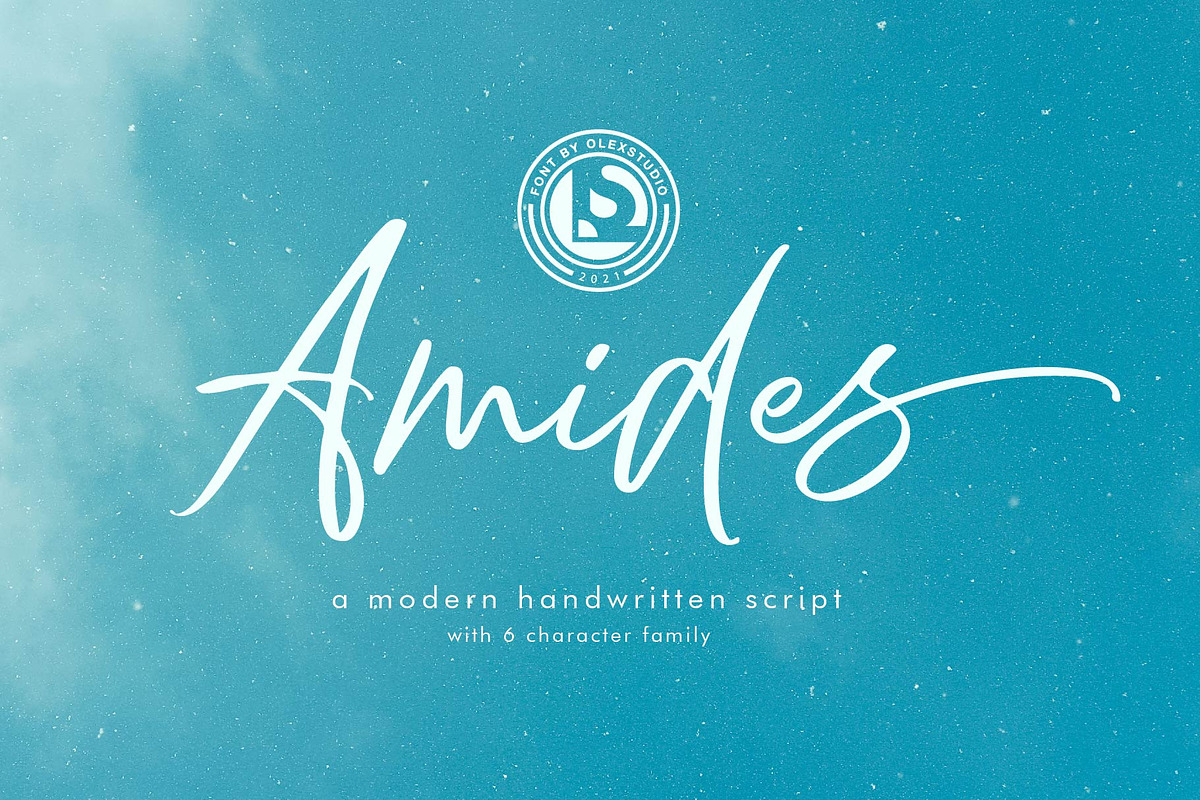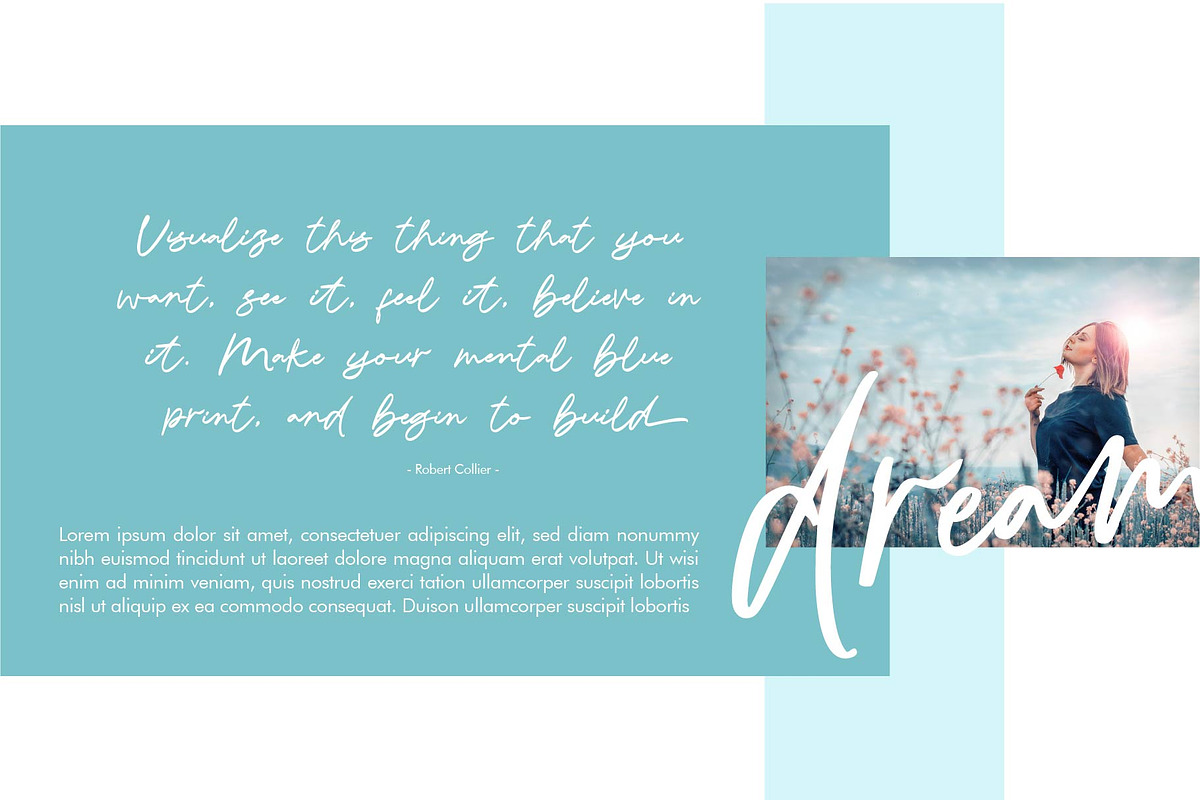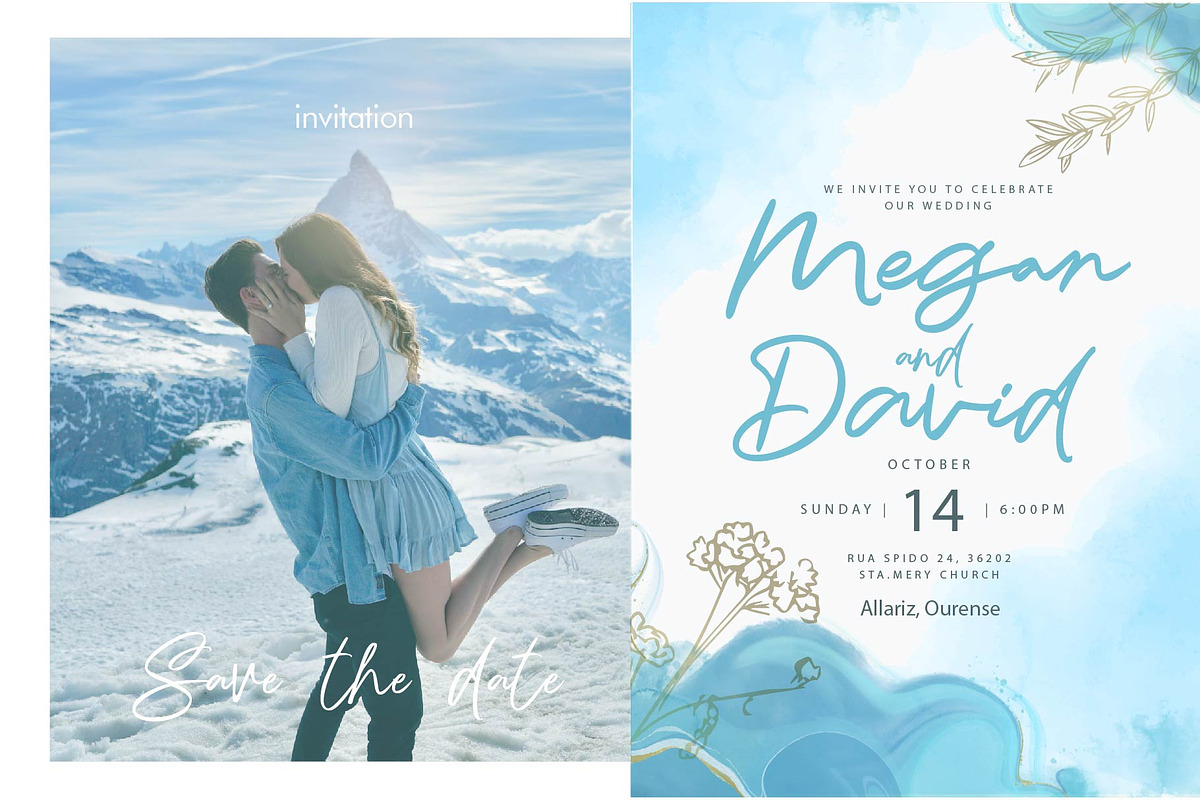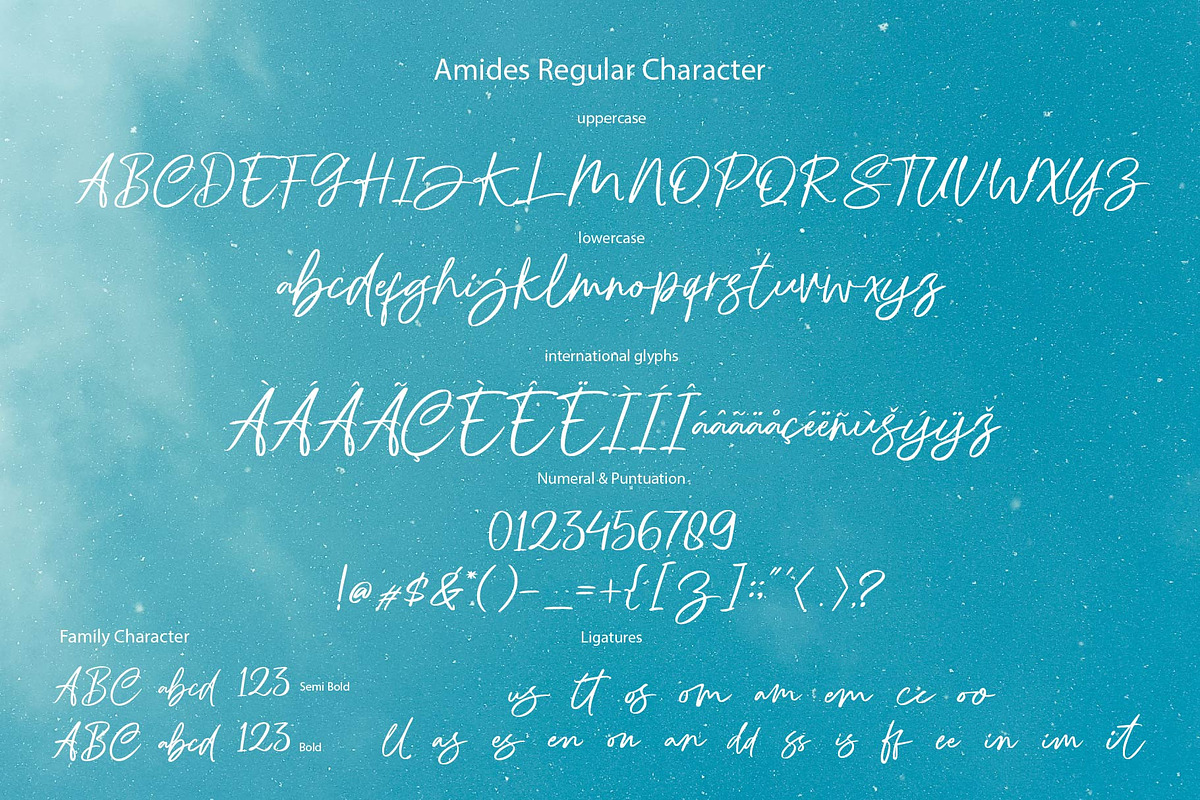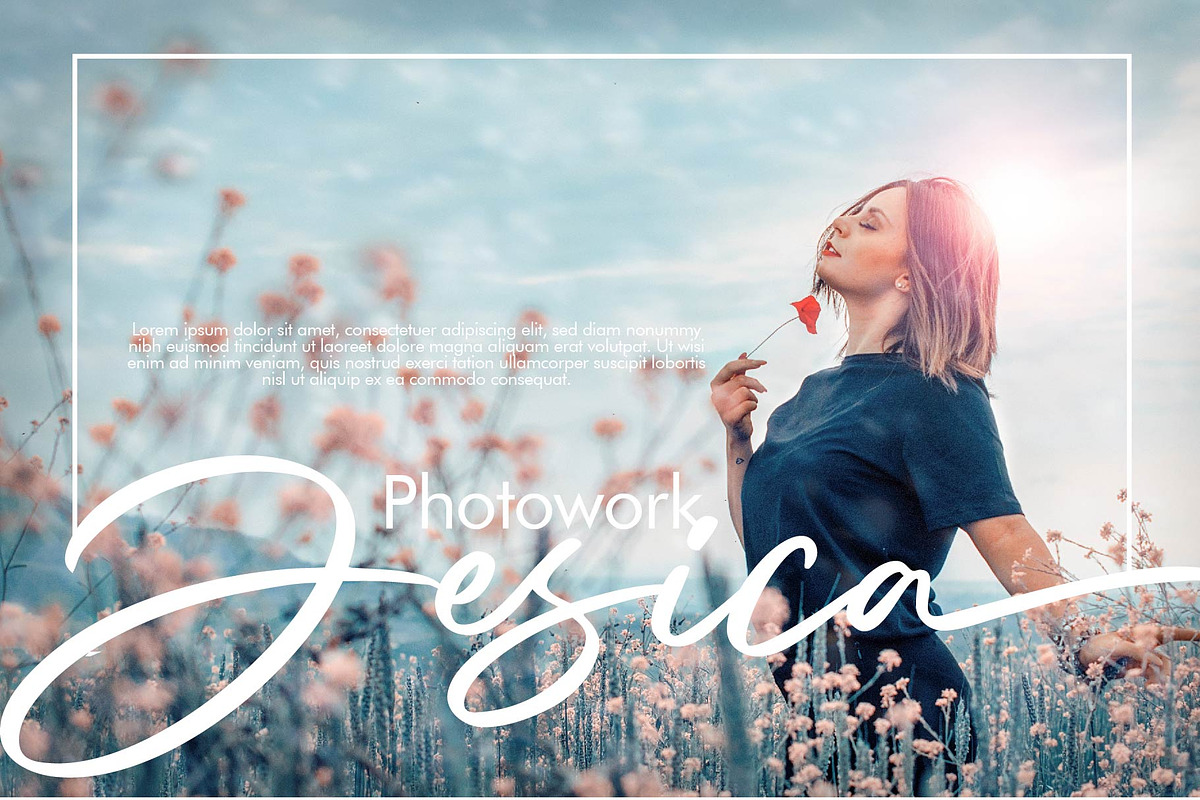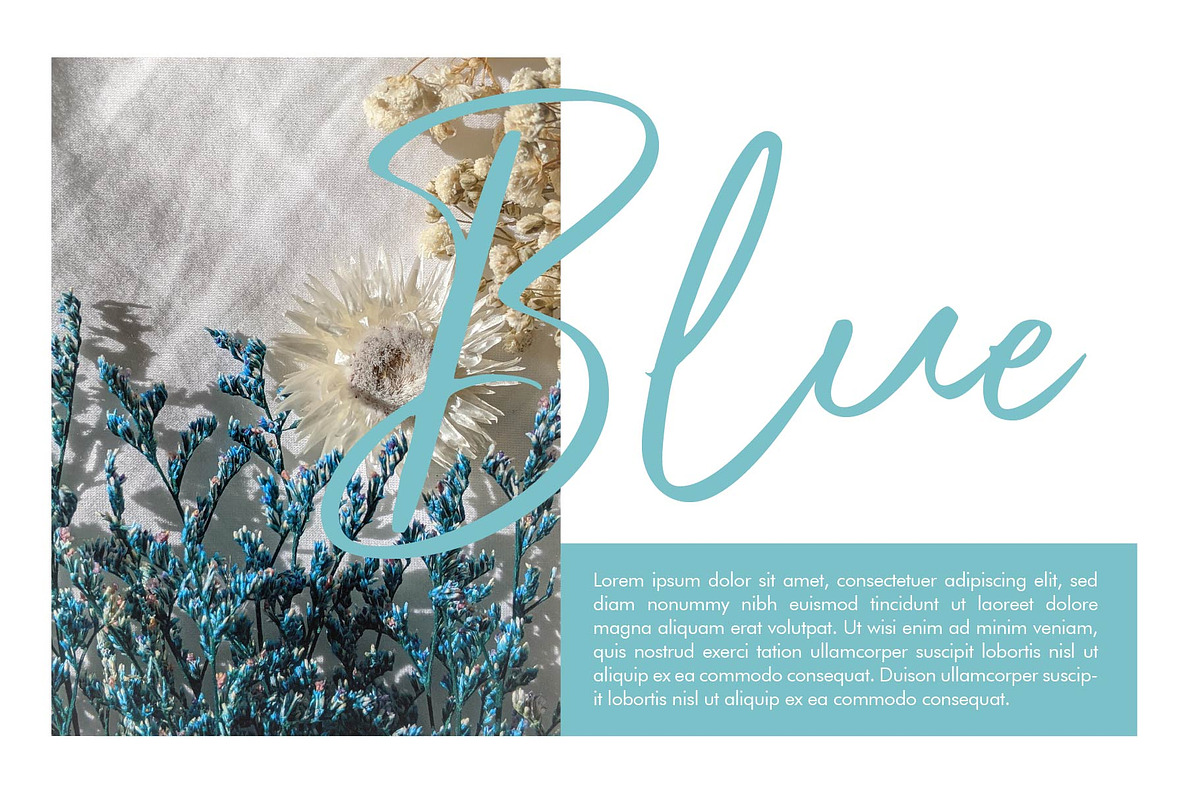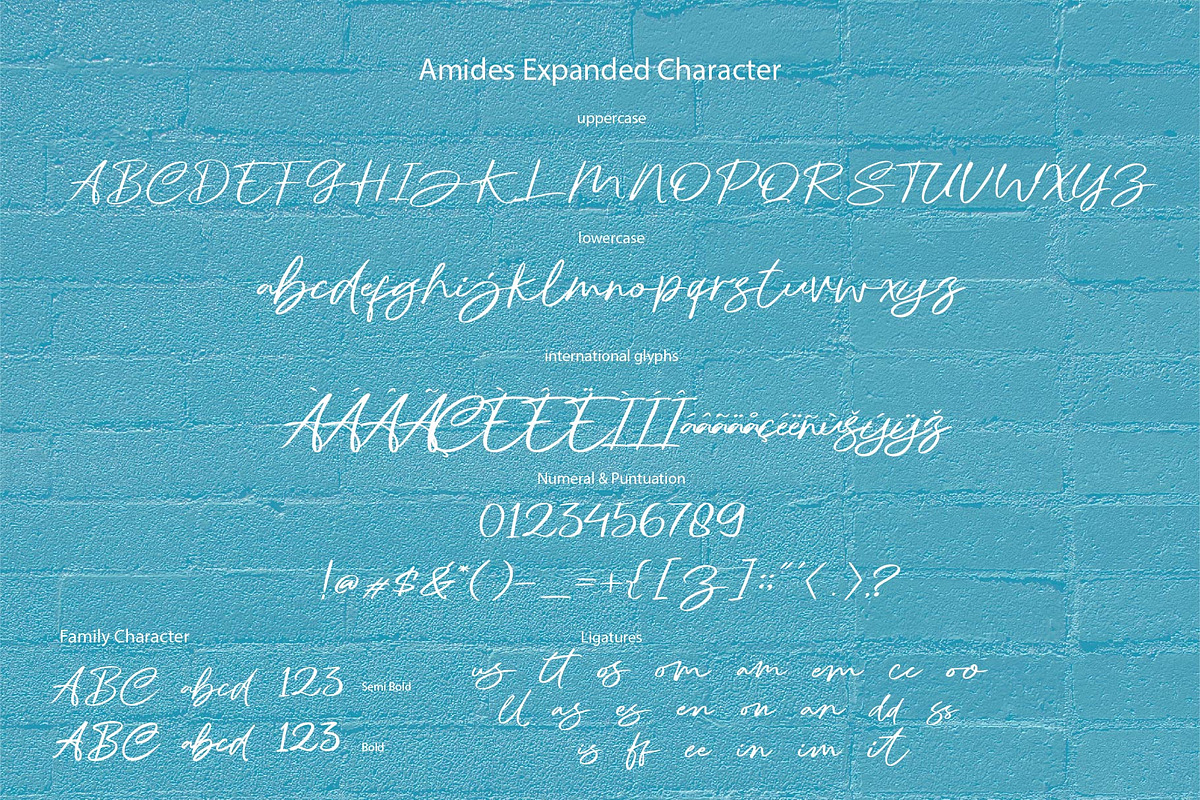
AMIDES - Handwritten
Amides - Handwritten Family font will look gorgeous on all your designs, invitation, poster design, book design, branding materials, logo's, t-shirt and all project design other.
Amides - Handwritten Family font contains standard characters, Lowercase, alternates, end swashes, Uppercase, numbers, punctuation, ligatures and international glyphs. You will receive OTF, TTF files & WEBFONT.